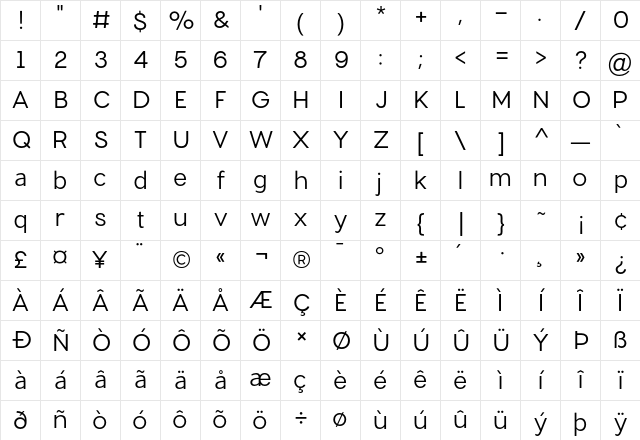
Charlevoix Pro Regular
Foundry: Pangram Pangram
Designer: Mathieu Desjardins
Charlevoix Pro Family
Charlevoix Pro Regular
Complete Charlevoix Pro Regular glyph index. Displaying only characters natively supported by Charlevoix Pro Regular font.
Design Context for Charlevoix Pro
Charlevoix Pro is a composed and adaptable typeface that performs quietly and consistently across a wide range of design contexts.
Who designed the Charlevoix Pro Regular font?